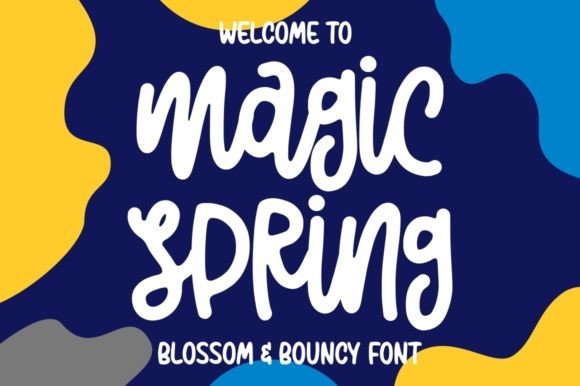
Magic Spring Script Font
Magic Spring celebrates the most wonderful season with its quirky and vibrant letters. Fall in love with this gorgeous script font, and turn any design project into a true standout!